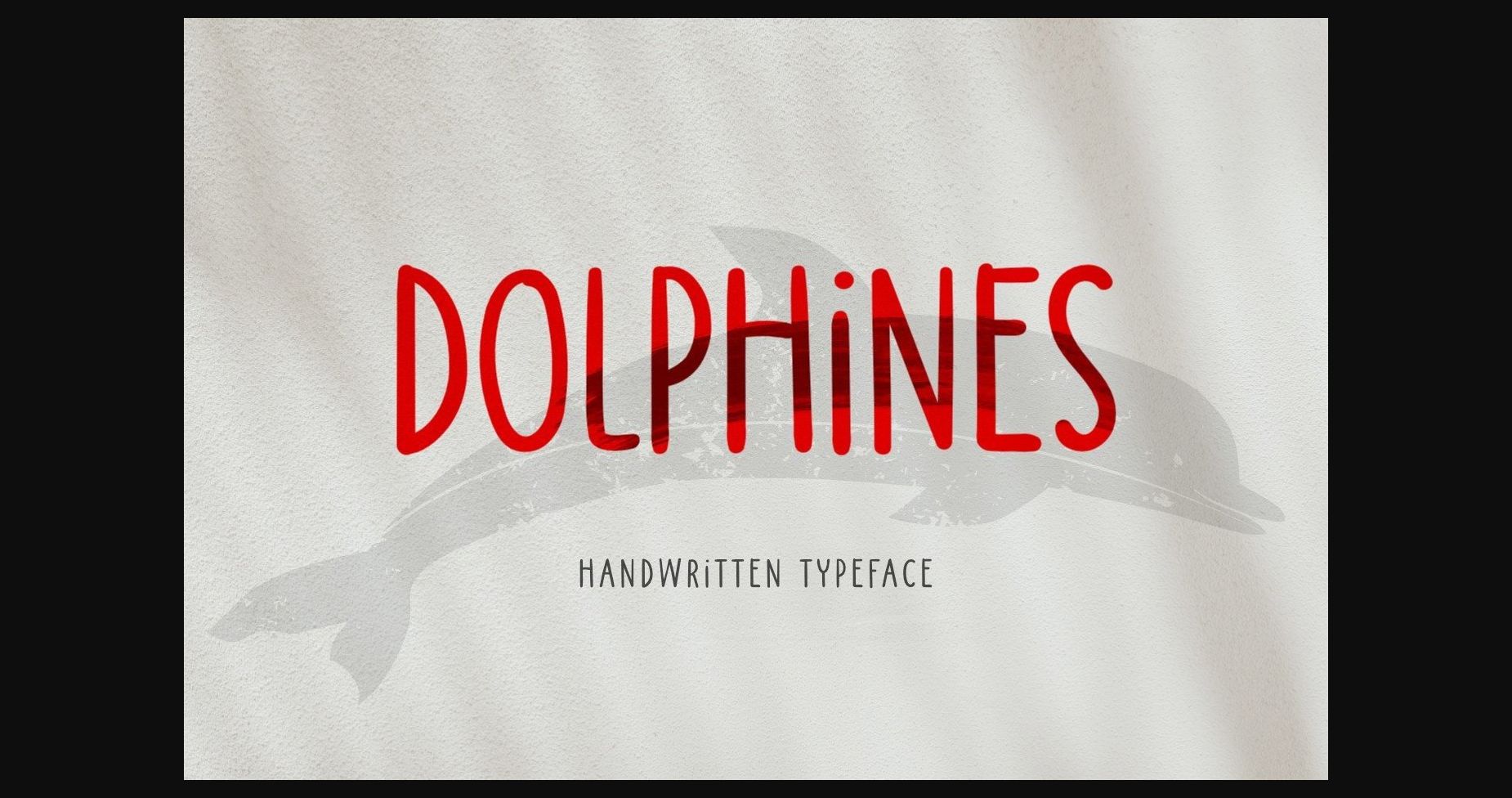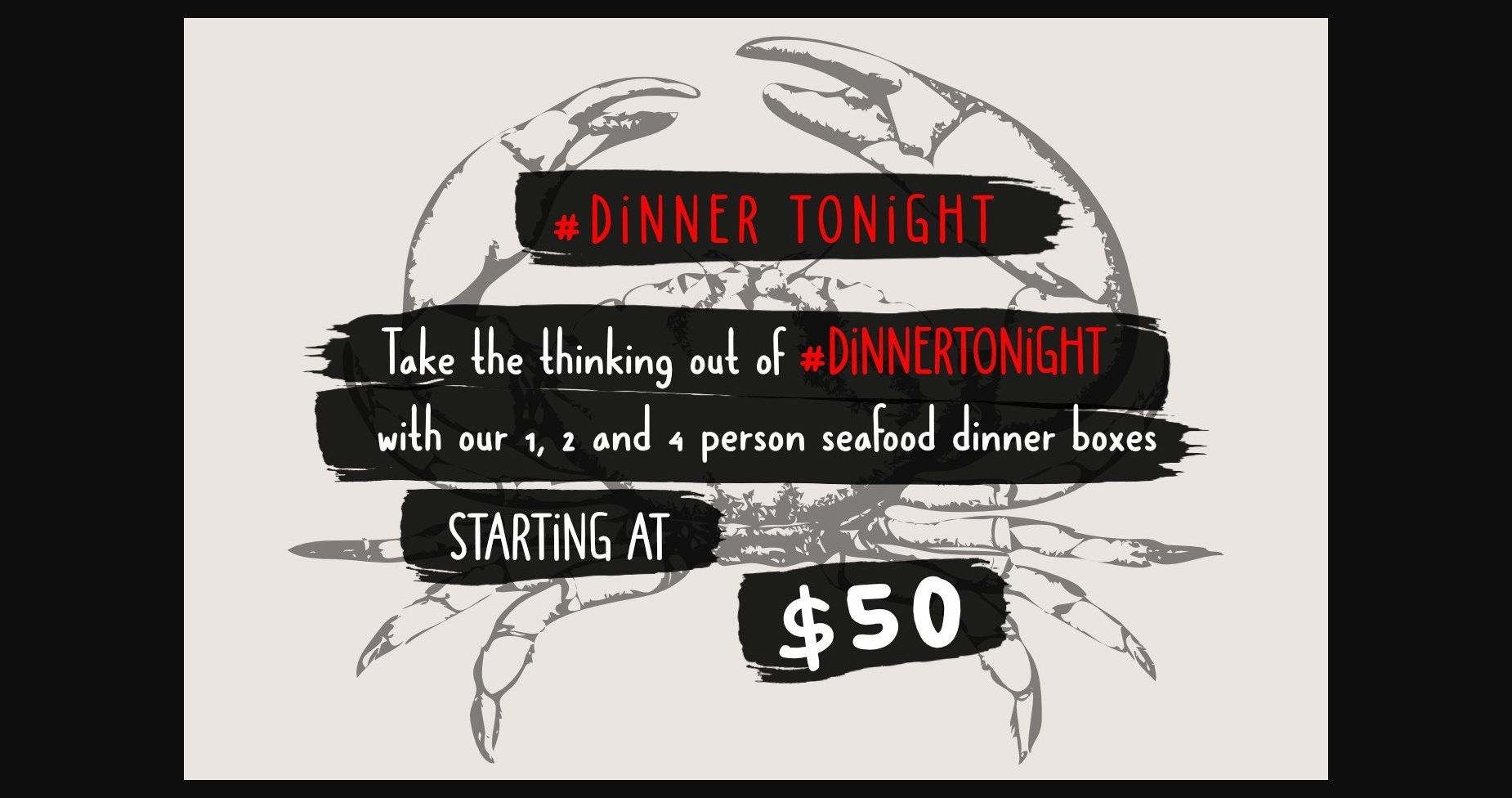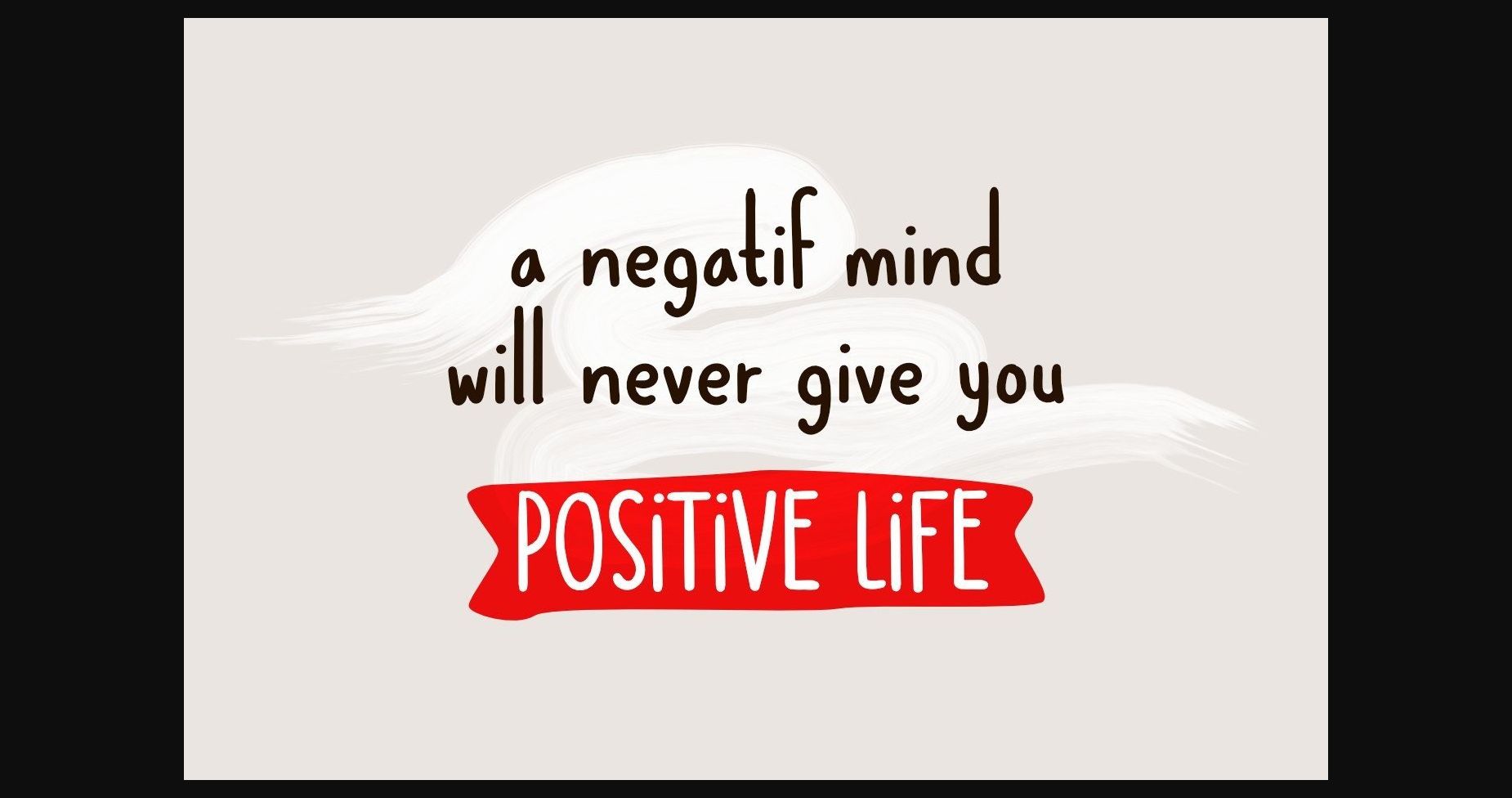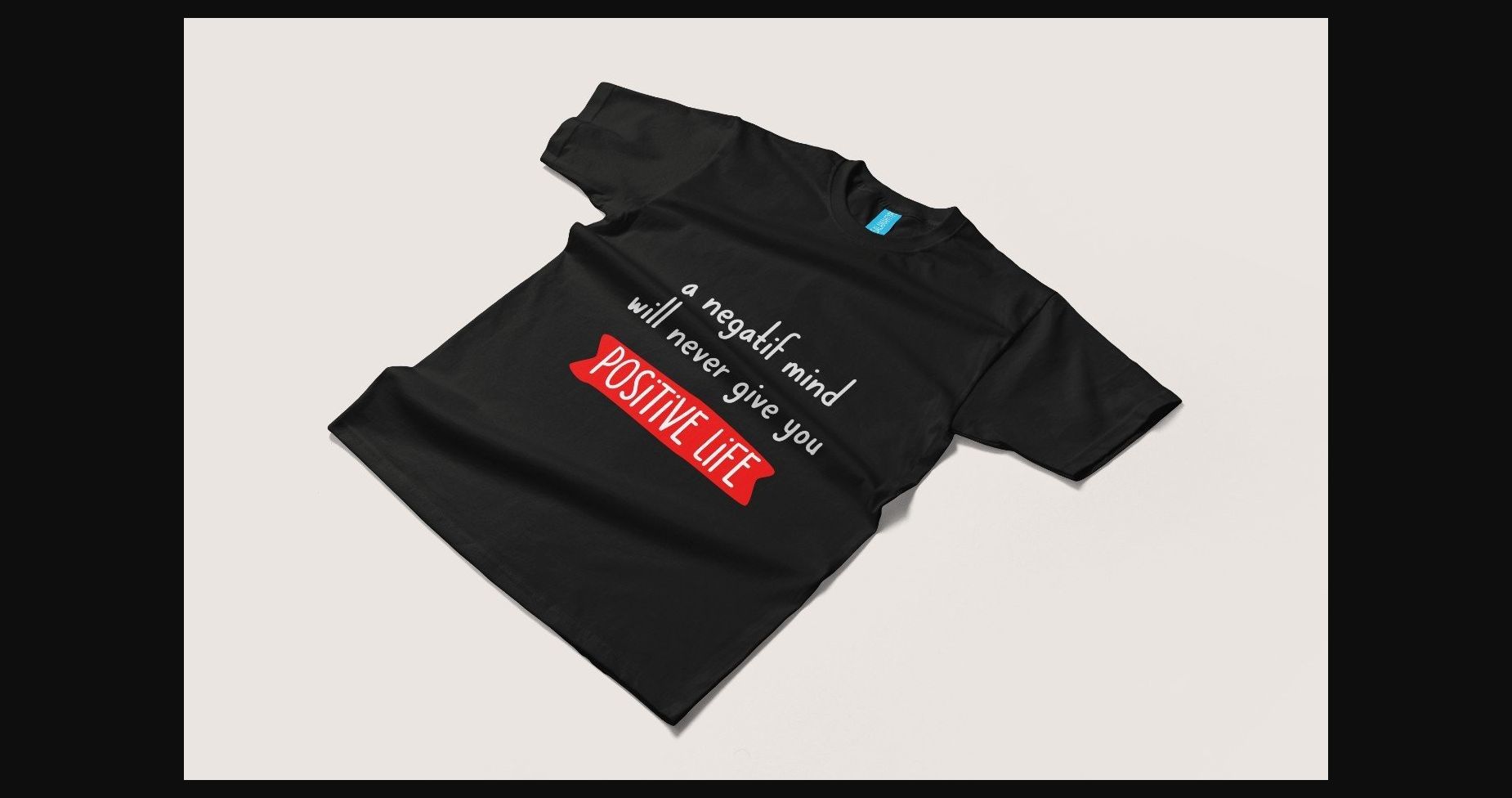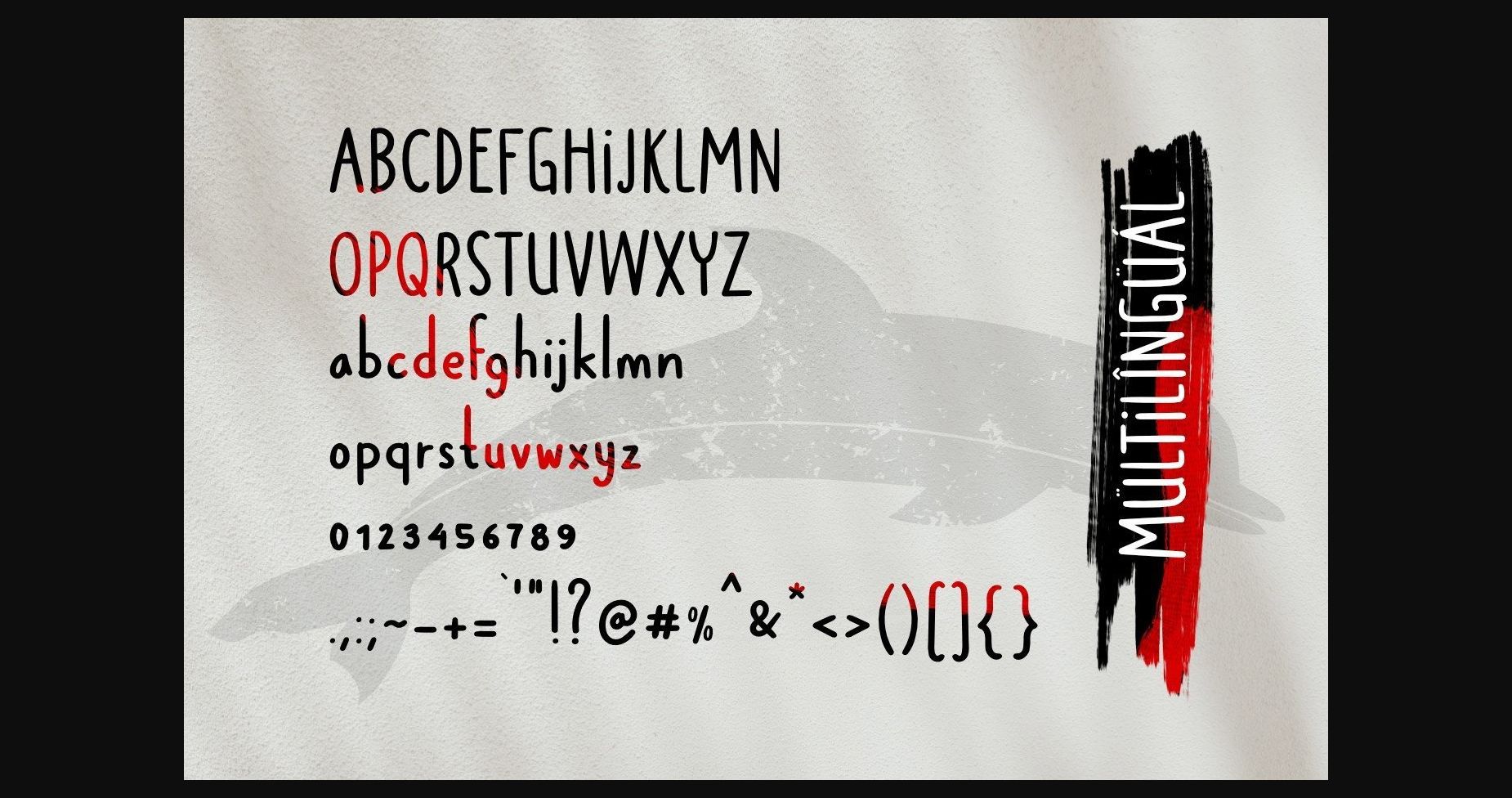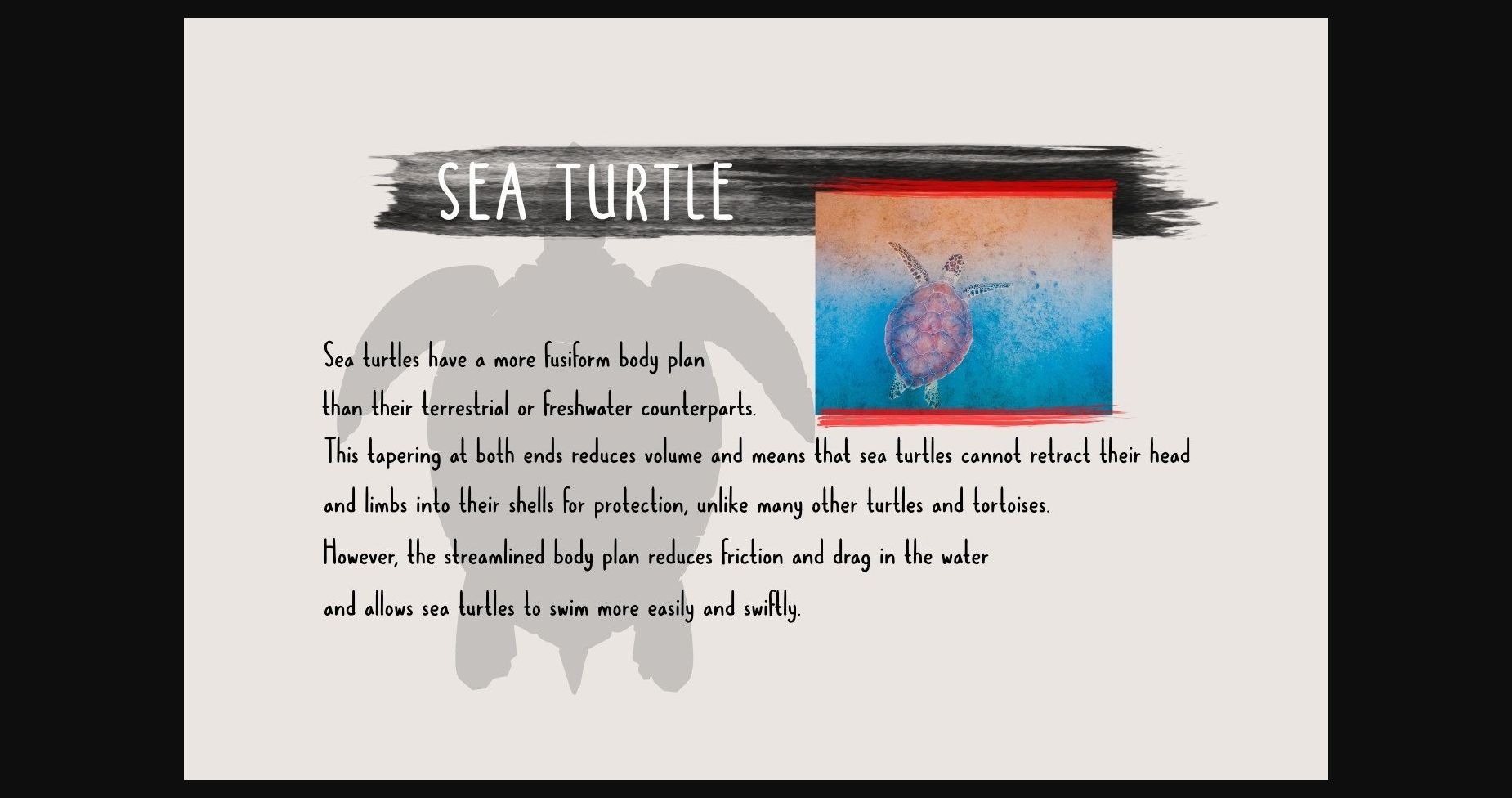
Dolphines is a cute handwritten font. Dolphines suitable for many of your visual needs, like for branding materials, merchandise, logos, quotes, posters, and more!